20 Best Spring Decorative Font Options to Make Your Designs Bloom
As a designer, I know how a fresh typeface can transform a project. I’ve curated these 20 best Spring Decorative Font picks to help you capture that seasonal magic. From delicate florals to whimsical bunnies, these fonts will bring a professional, nature-inspired touch to your creative toolkit.
1. Spring Flowers Decorative Font
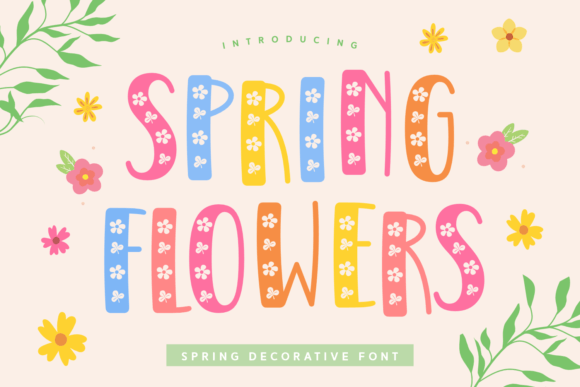
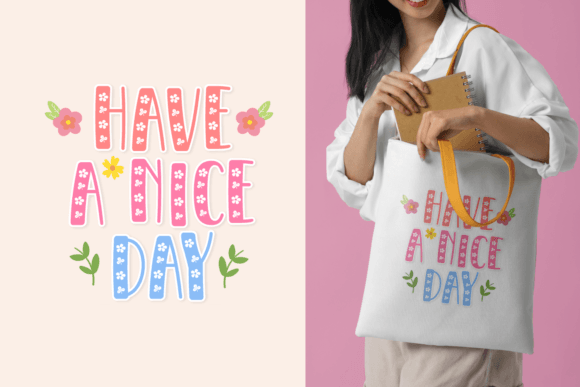
There is something so revitalizing about transitioning my palette from heavy winters to the airy textures of a Spring Decorative Font. When I first started working with Spring Flowers, I was immediately struck by how it captures the literal essence of the season. It’s not just a typeface; it’s a collection of blooming floral elements integrated directly into the letterforms. As a designer, I love how it effortlessly brings that “fresh from the garden” feeling to life, making it a dream for projects that need to feel vibrant and deeply connected to natural beauty.
In my recent workflow, I’ve found this Spring Decorative Font to be the perfect companion for high-end wedding invitations and organic product packaging. It adds a layer of elegant, nature-inspired charm that feels both handcrafted and professional. Whether you’re designing for a boutique skincare line or creating seasonal event decor, the delicate floral details in “Spring Flowers” are sure to captivate your audience. It is an essential asset for anyone looking to infuse their work with the joy and renewal that only spring can bring.
2. Mother Pinky Spring Decorative Font
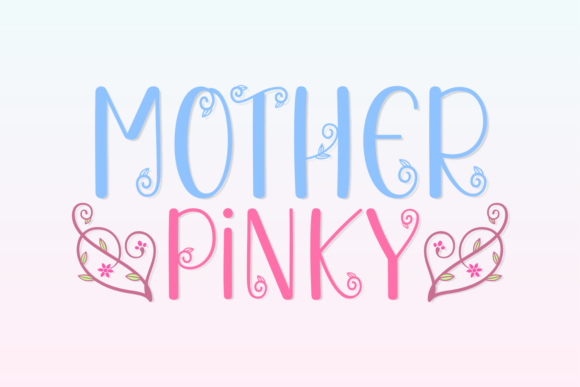
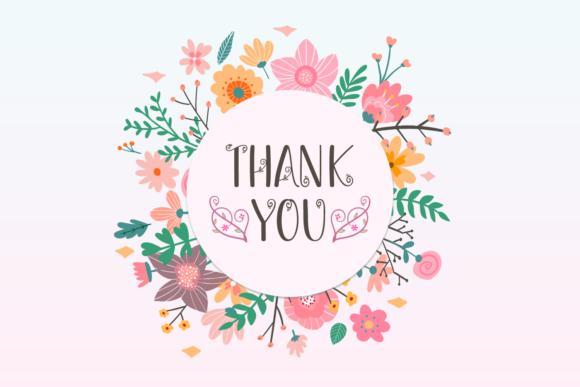
When the seasons change, I always find myself reaching for a Spring Decorative Font that can bring a bit of the outdoors into my digital workspace. Mother Pinky is exactly that—a beautifully creative typeface inspired by the delicate intricacies of flowers and leaves. What I personally find so charming about this font is how the characters are woven together with swirls and curls, making every word look like a hand-drawn botanical illustration. It’s one of those fonts that doesn’t just display text; it tells a story of growth and renewal.
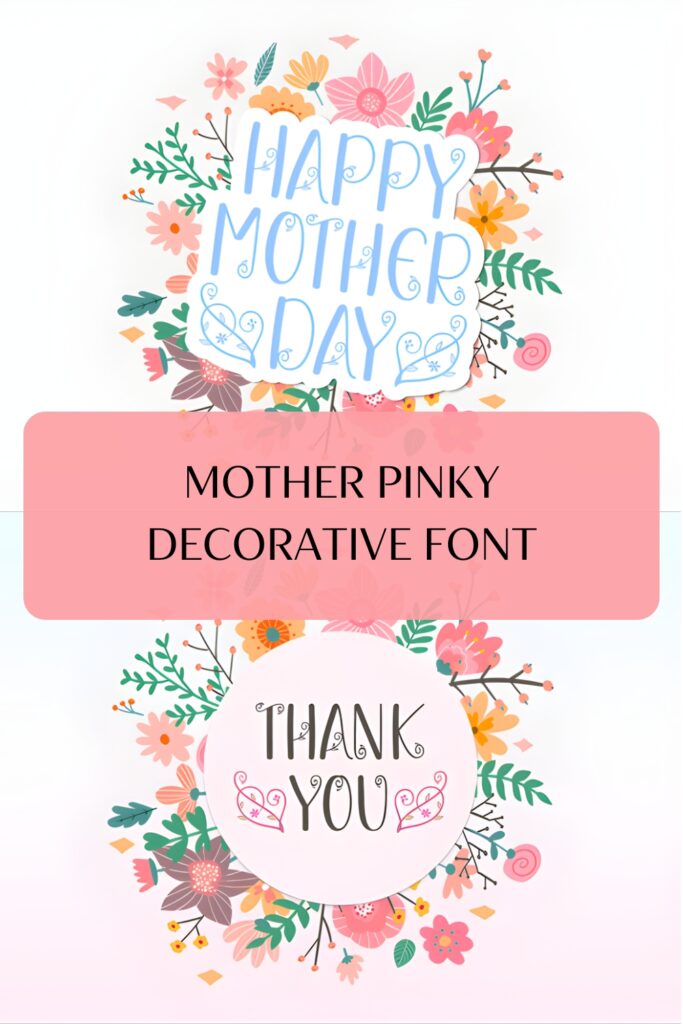
As a designer, I’ve found that this Spring Decorative Font is an absolute gem for niche projects like flower shop branding, wedding stationery, or whimsical birthday invitations. The level of detail in the floral character set is impressive, allowing it to stand alone as a decorative element on posters or book covers. Whether I’m crafting a heartfelt quote or a fresh new logo, Mother Pinky adds a layer of “spring-themed” magic that feels both playful and sophisticated. It is a must-have for any toolkit when you need to deliver a design that feels light, organic, and full of life.
3. Wildflower Spring Decorative Font
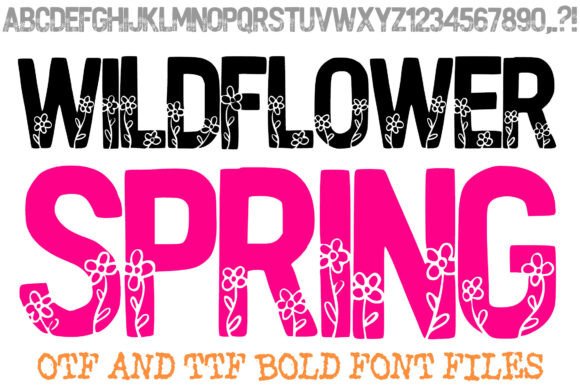
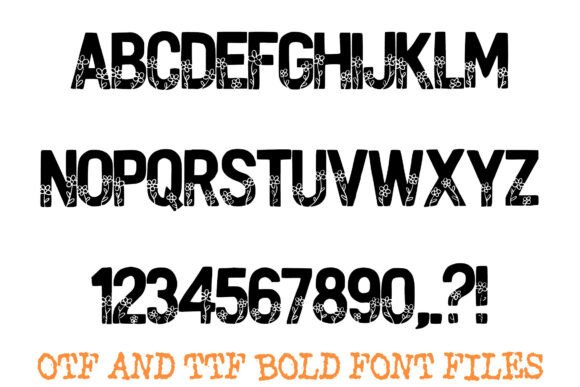
There is something incredibly poetic about a typeface that captures the “midnight garden” aesthetic, and Wildflower Spring does exactly that. As a designer, I’m always hunting for a Spring Decorative Font that manages to balance raw strength with delicate beauty. What makes this high-contrast display font a staple in my library is the genius way it uses heavy, black block characters as a canvas for intricate, hand-drawn white flowers. It’s a stunning visual metaphor—the botanical illustrations literally look like they are “growing” out of the solid silhouettes, giving any project an instant artisanal and professional feel.
In my personal experience, this Spring Decorative Font is a total powerhouse for branding and merchandise. Because the base shapes are so chunky and readable, your headlines command attention, while the internal floral doodles provide that soft, organic “pop” that clients love. I’ve used it for everything from “aesthetic” apparel designs and tote bags to high-end boutique logos. It’s also a dream for those of us who use vinyl cutting machines like Cricut, as the clean, solid paths make the crafting process a breeze. Whether you’re designing for a garden party banner or a sophisticated social media headline, Wildflower Spring brings a bold yet sophisticated nature-inspired touch to the table.
4. Today Bloom Spring Decorative Font
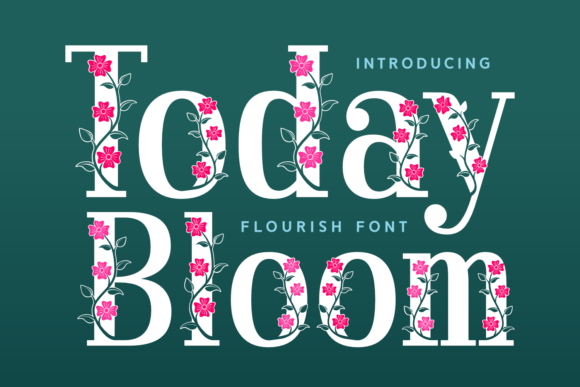
When I want my designs to feel like a fresh morning in the garden, Today Bloom is my immediate go-to. As a designer, I’ve found that a truly great Spring Decorative Font needs more than just nice letters—it needs a soul, and this typeface delivers that through its gorgeous, flourishing details. It has this soft, feminine energy that makes it feel incredibly personal and intentional, almost like it was hand-sketched specifically for the project I’m working on.
In my own studio work, I’ve seen this Spring Decorative Font work wonders for high-end wedding invitations and custom wall art. The delicate flourishes add a layer of sophistication that transforms a simple quote into a piece of art. Whether I’m mocking up a floral-themed T-shirt or creating a logo for a boutique brand, Today Bloom brings that light, airy, and “spring-like” aesthetic that feels both modern and timeless. It’s the perfect choice when you want your message to bloom right off the page.
5. Flopy Spring Decorative Font
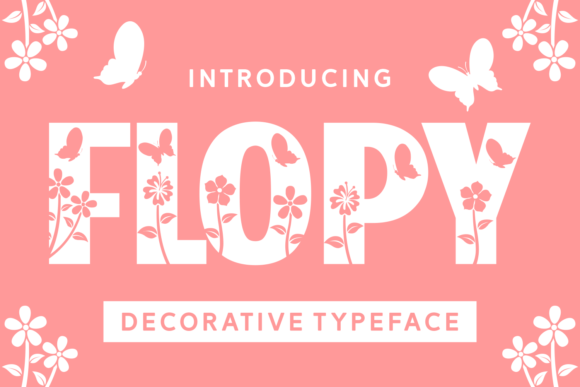
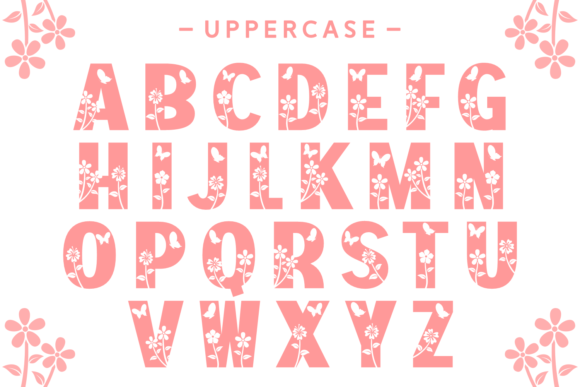
There are times when a design just needs to feel joyful and a bit whimsical, and that is exactly when I reach for Flopy. As a designer, I’m always charmed by a Spring Decorative Font that doesn’t take itself too seriously while still maintaining a high level of detail. What makes Flopy so special is the delightful surprise hidden within every letter—you’ll find tiny, beautiful butterflies and flowers intricately woven into the entire character set. It’s the kind of typeface that instantly sparks the imagination and makes the creative process feel like a walk through a meadow.
Choosing the right Spring Decorative Font is the easiest way to breathe life into your seasonal branding or DIY crafts. I hope this selection inspires your next masterpiece! Which of these blooming styles is your favorite? Let me know in the comments, and happy designing!